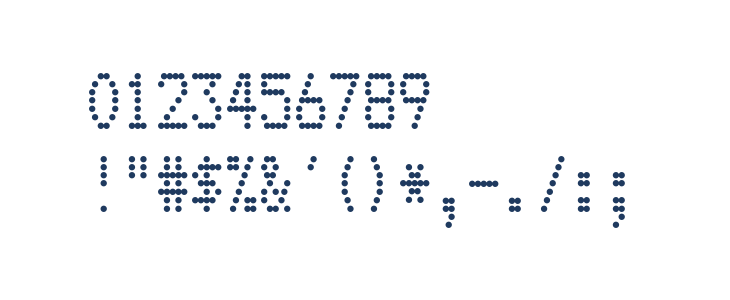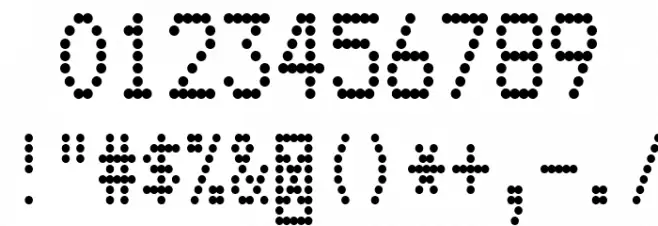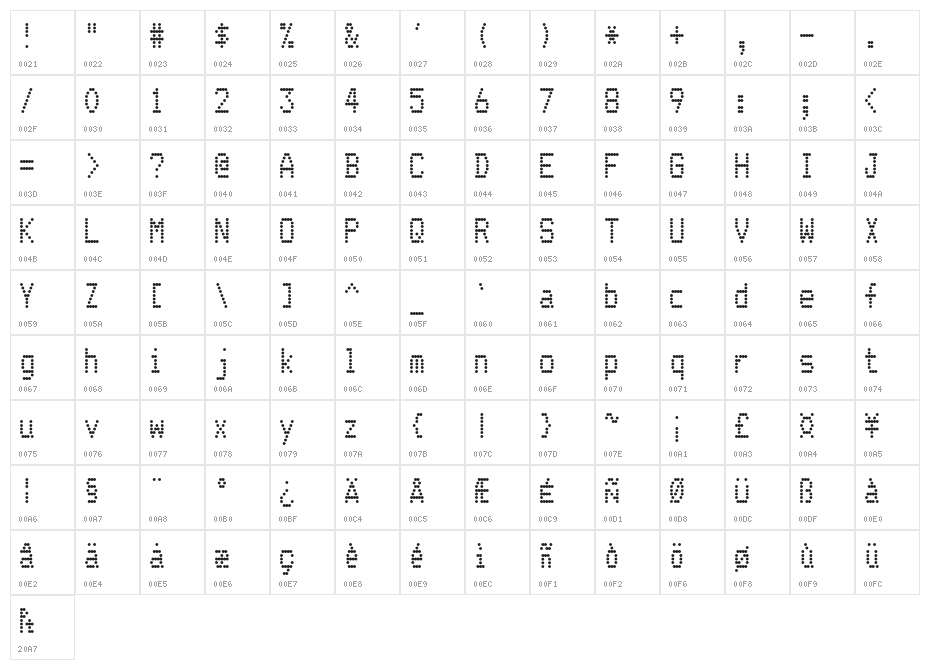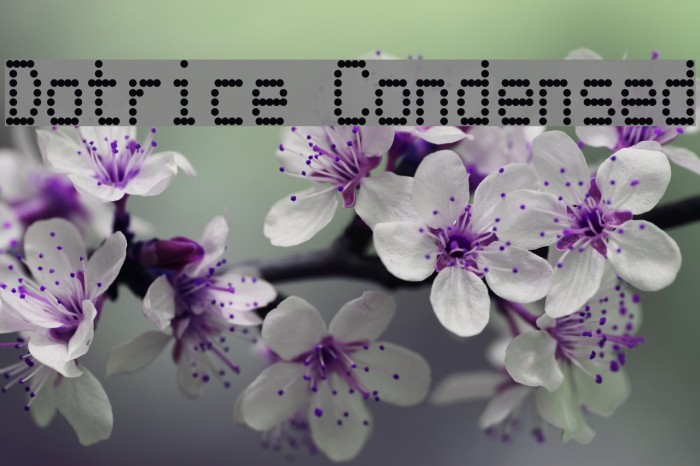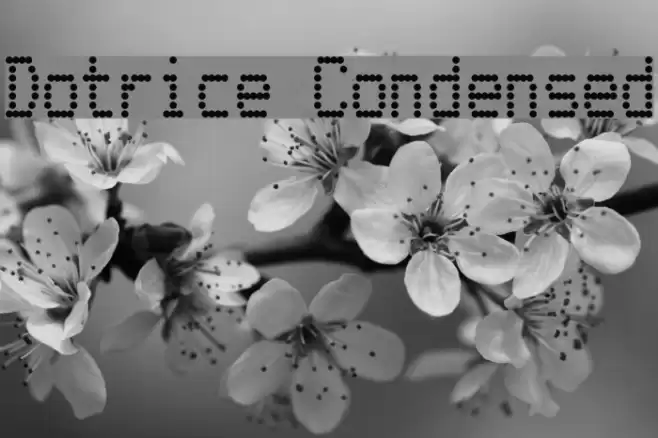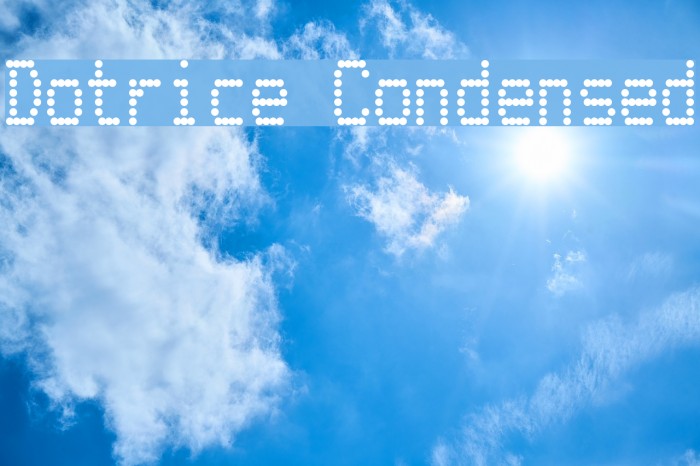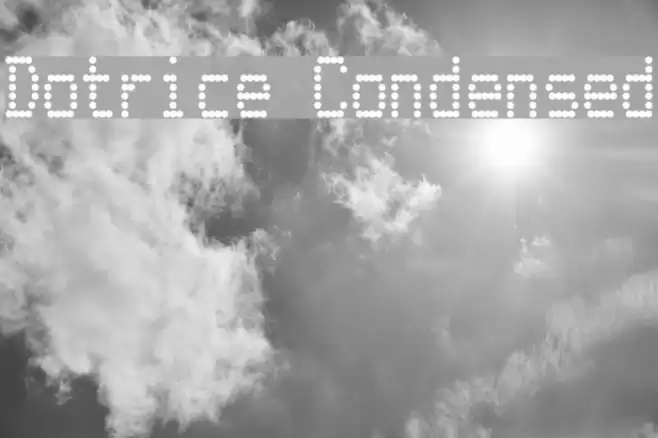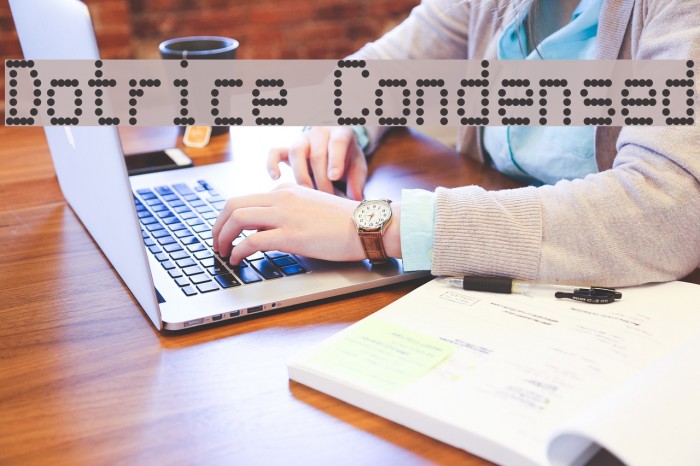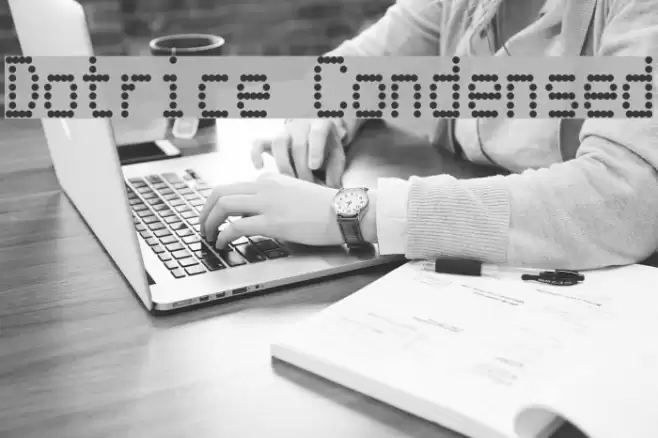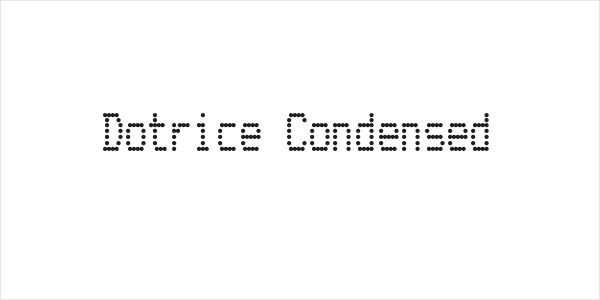
Dotrice Condensed Font
Dotrice Condensed Description
This font features a unique dotted design, where each character is composed entirely of small, evenly spaced dots. The overall appearance is geometric and structured, giving it a modern and digital feel. The uppercase and lowercase letters maintain consistent spacing and alignment, creating a uniform look across the alphabet. Numbers and special characters follow the same dotted pattern, ensuring cohesion throughout the font. The condensed nature of the font allows for efficient use of space, making it suitable for projects where space is limited but style is essential.
| Use Case | Headlines, Logos, Digital displays |
| Proposed Projects | Ideal for digital displays, tech-themed designs, posters, and creative branding projects. |